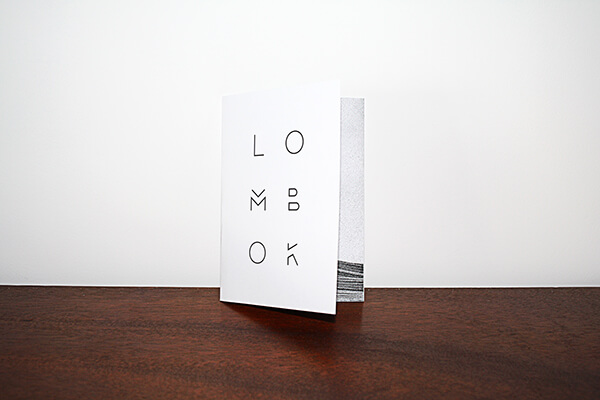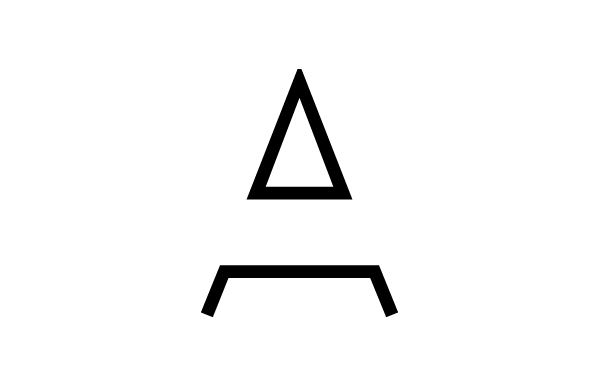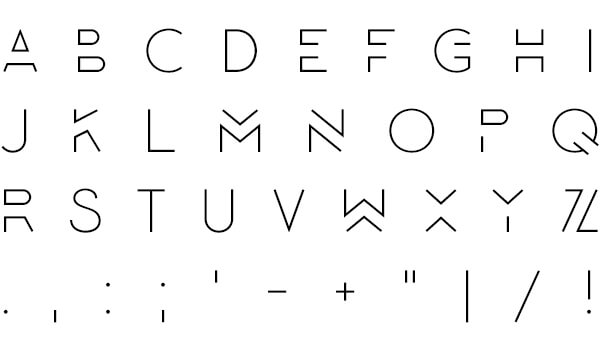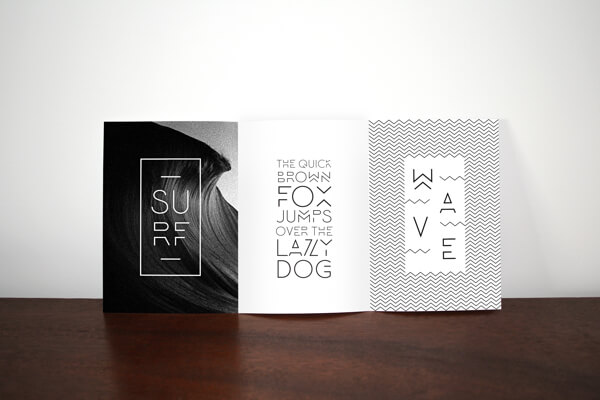
Lombok futuristic typeface free for personal use
Lombok is an sans serif typeface with a futuristic strong presence ideal for flyers posters or similar stuff, it’s free only for personal use
Lombok typeface – free for personal use